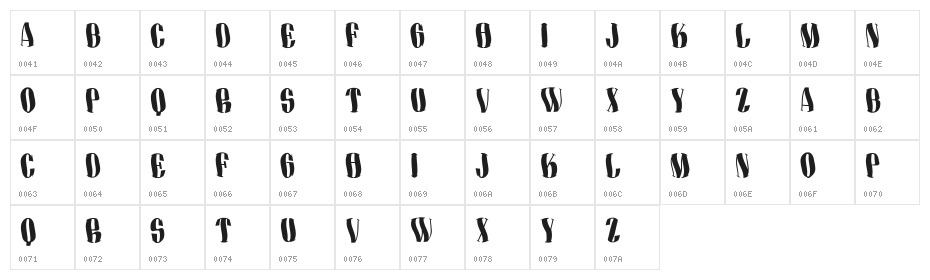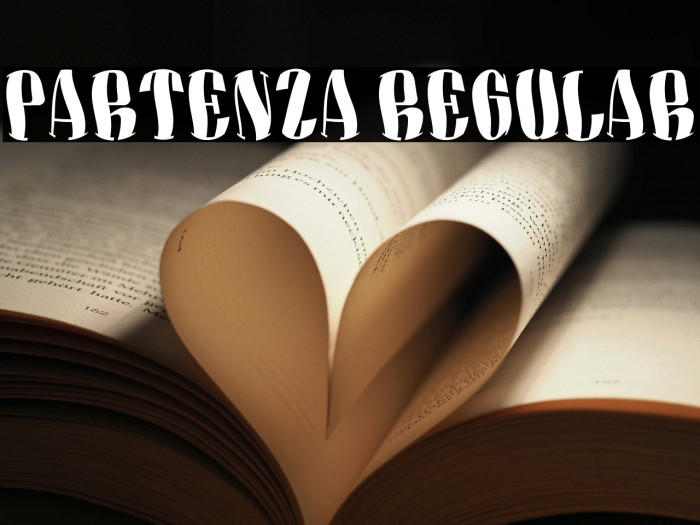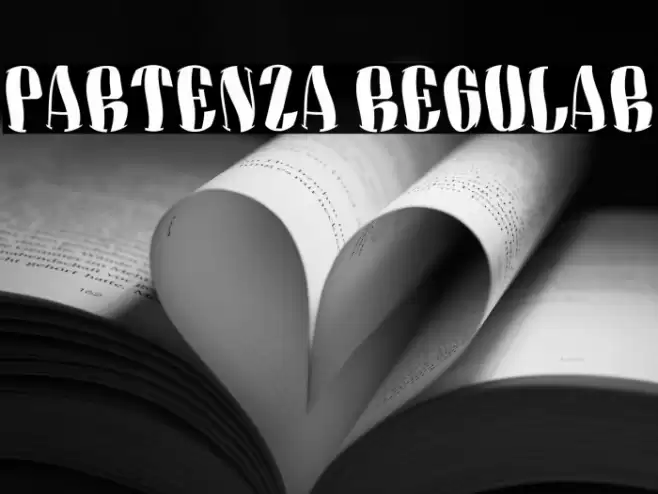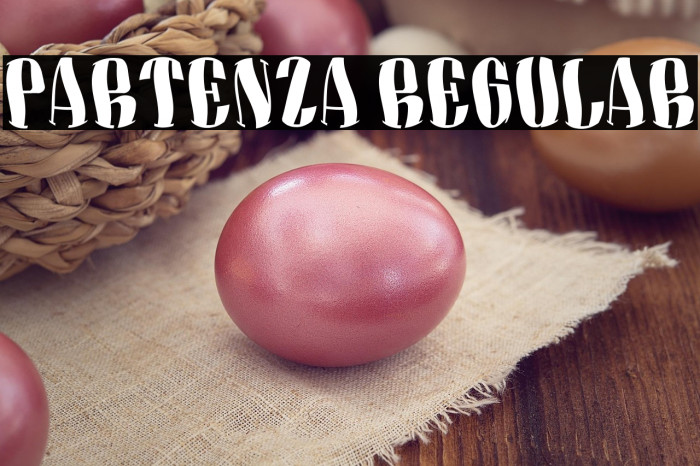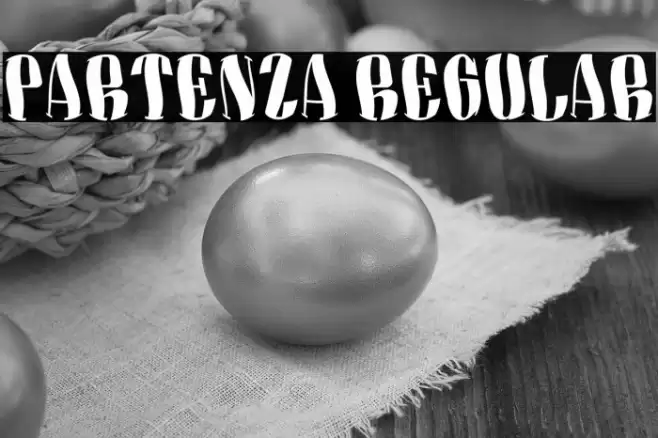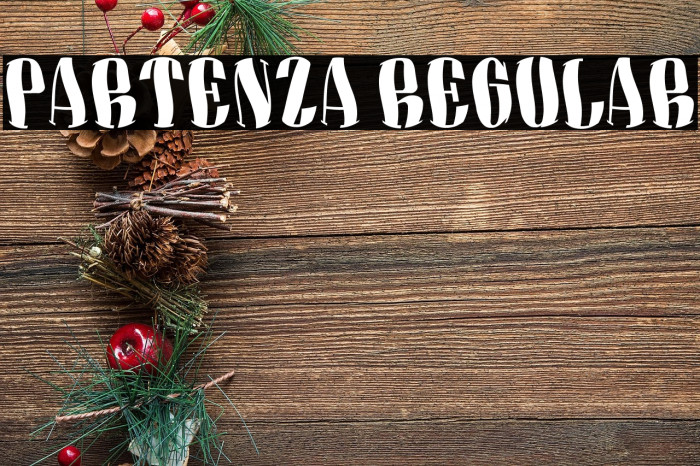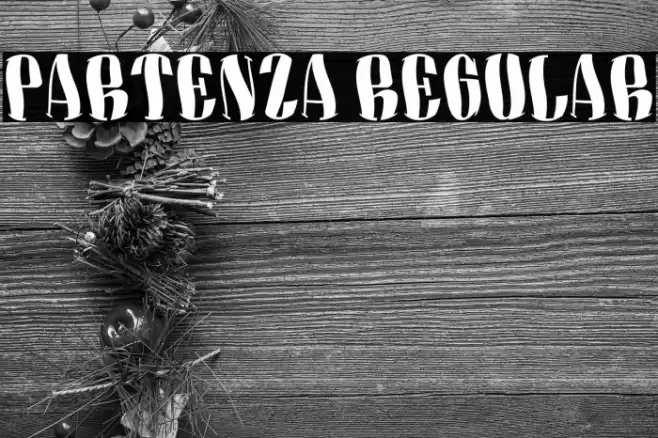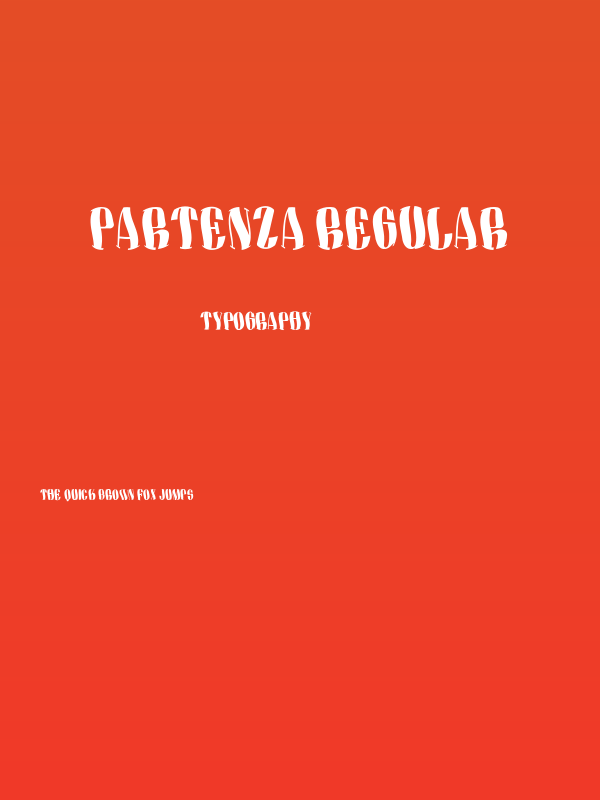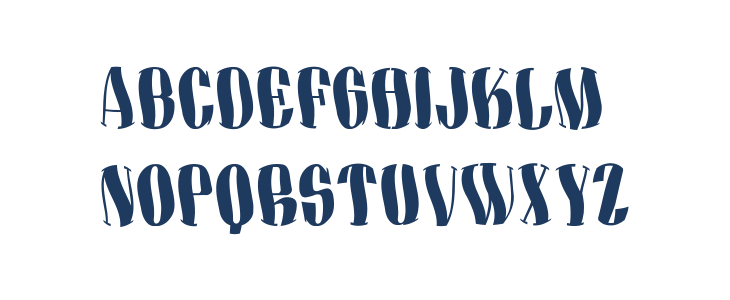
Partenza Regular Font
Partenza Regular Description
This font features a bold and dramatic style with high contrast between thick and thin strokes, giving it a striking and dynamic appearance. The characters have a unique, almost theatrical flair, with exaggerated serifs and angular shapes that create a sense of movement and energy. The uppercase letters are particularly bold, while the lowercase letters maintain the same dramatic style, ensuring consistency across the typeface. The numbers and special characters are designed with the same attention to detail, making them stand out. This font is perfect for making a statement and drawing attention.